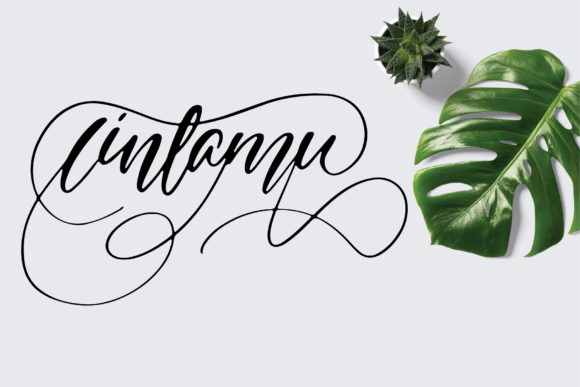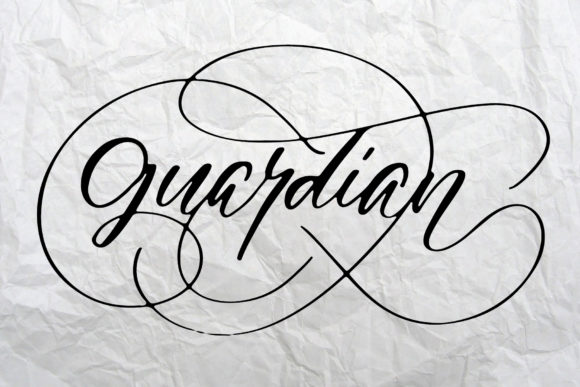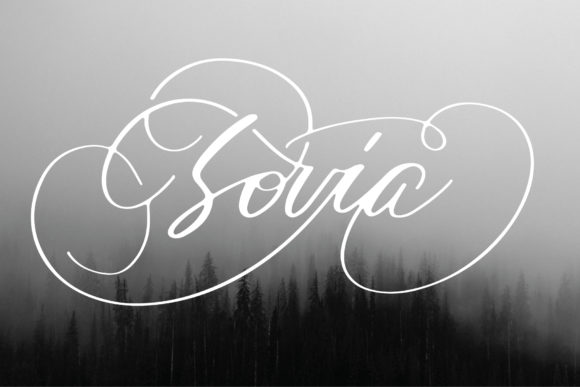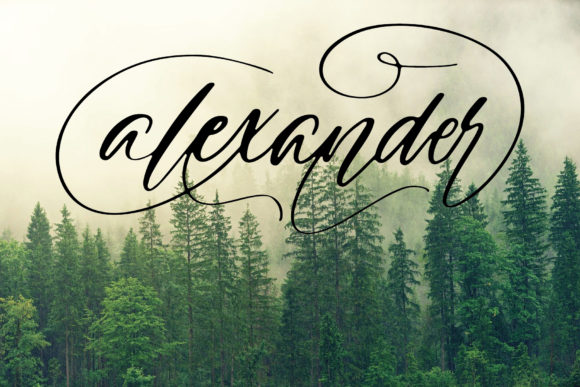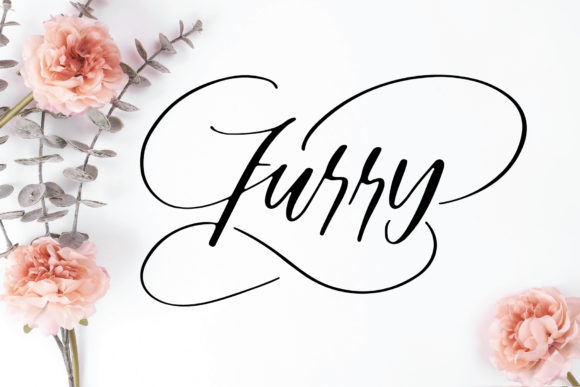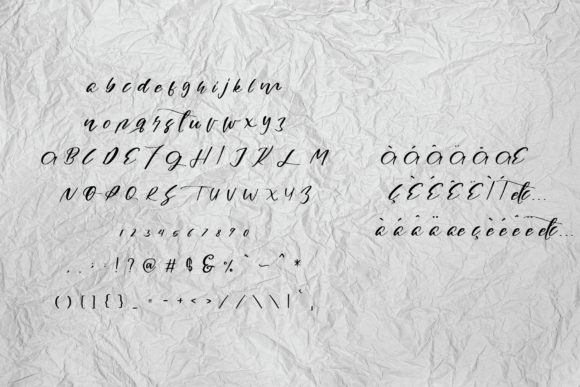
Introducing Expose Font: The Elegant and Playful Script for Designers and Crafters
Are you tired of using the same old fonts in your designs? Look no further! Expose Font is a unique and swirly script that is sure to add a touch of elegance and playfulness to your projects. With its gorgeous and playful swashes, Expose Font is the perfect choice for designers and crafters who want to make their work stand out.
The Elegant Feel of Expose Font
Expose Font is a script font that exudes elegance and sophistication. Its swirly and curly design makes it perfect for creating beautiful and eye-catching headlines, titles, and quotes. The font’s elegant feel is sure to add a touch of luxury to your designs, making it ideal for high-end branding, packaging, and advertising projects.
Playful Swashes for Added Flair
One of the standout features of Expose Font is its gorgeous and playful swashes. These swashes add a touch of whimsy and playfulness to your designs, making them perfect for projects that require a bit of personality. Whether you’re designing a children’s book, a craft project, or a social media graphic, Expose Font’s swashes are sure to add a fun and creative touch.
Expose Font is a versatile font that is perfect for both designers and crafters. Its elegant and playful design makes it ideal for a wide range of projects, from professional branding and advertising to personal craft projects and DIY tutorials. Whether you’re a seasoned designer or a crafty hobbyist, Expose Font is sure to become a favorite in your font collection.
Use Expose Font for:
- Branding and Logo Design: Use Expose Font to create beautiful and elegant logos that will make your brand stand out.
- Headlines and Titles: Add a touch of sophistication to your headlines and titles with Expose Font’s swirly and curly design.
- Quotes and Sayings: Use Expose Font to create beautiful and eye-catching quotes and sayings that will add a touch of elegance to your designs.
- Craft Projects: Add a personal touch to your craft projects with Expose Font’s playful and whimsical design.
- Social Media Graphics: Use Expose Font to create eye-catching social media graphics that will make your posts stand out.
Why Choose Expose Font?
There are many fonts to choose from, but Expose Font stands out from the rest. Here are just a few reasons why:
- Unique Design: Expose Font has a unique and swirly design that is sure to make your projects stand out.
- Elegant and Playful: Expose Font combines elegance and playfulness, making it perfect for a wide range of projects.
- Versatile: Expose Font is a versatile font that can be used for both professional and personal projects.
Get Ready to Fall in Love with Expose Font
In conclusion, Expose Font is a unique and swirly script font that is perfect for designers and crafters who want to add a touch of elegance and playfulness to their projects. With its gorgeous and playful swashes, Expose Font is sure to make your designs stand out. Whether you’re a seasoned designer or a crafty hobbyist, Expose Font is a versatile font that is sure to become a favorite in your font collection.